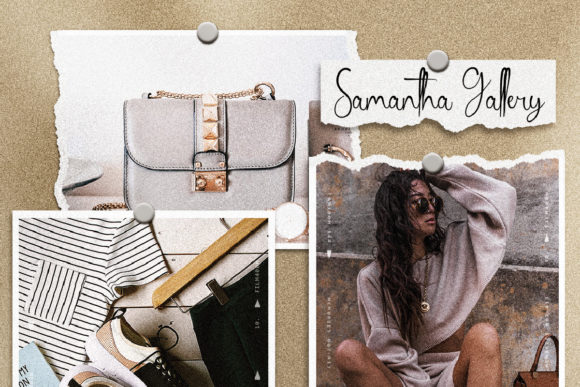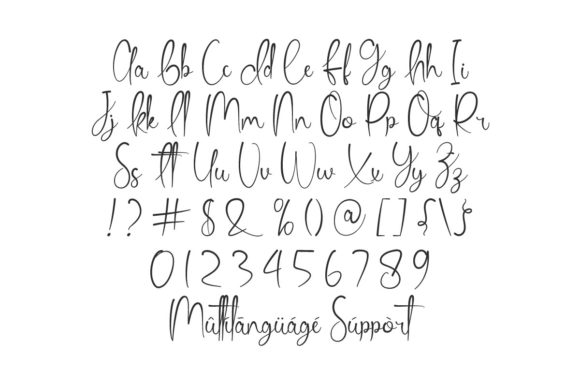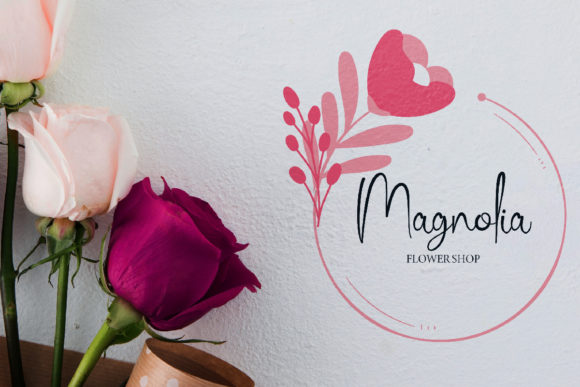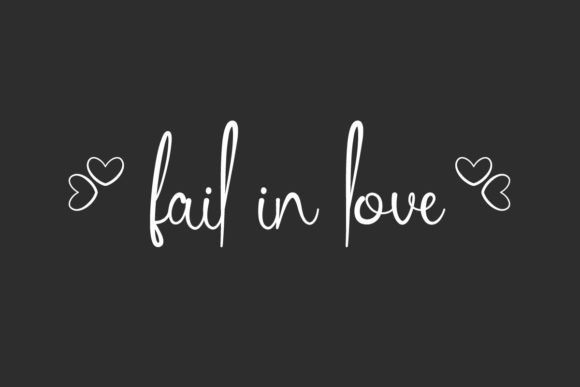
Introduction to Fail in Love Font
Fail In Love is a beautiful handwriting font, great for wedding, branding tittle, books, social media posts and more.
This font is PUA encoded which means you can access all of the glyphs and swashes with ease .
Key Features of Fail in Love Font